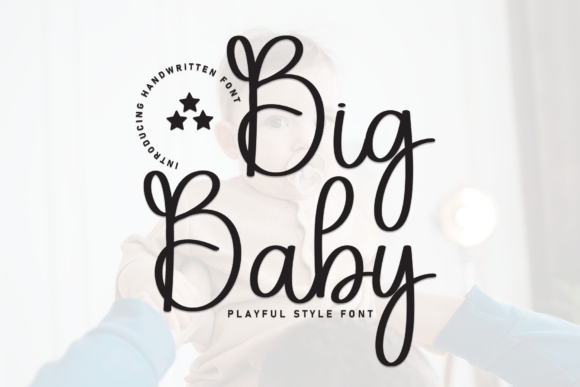
The Perfect Script for a Touch of Whimsy
Do you remember the moment when you stumbled upon the perfect font for a project? The one that made your design come alive and transported your audience to a world of wonder? For designers, this is the sweet spot where creativity meets magic. And for those seeking that special something, Big Baby Font is here to bring a fresh wave of whimsy and delight to your designs.
With its playful curves and graceful swashes, Big Baby Font is the ideal choice for enchanting wedding invitations, heartfelt greetings, and any project that calls for a touch of joyful elegance. Whether you’re a seasoned designer or a creative enthusiast, this font is a valuable addition to your toolkit, overflowing with personality and a hint of artistic refinement that effortlessly elevates your work with style and flair.
Big Baby Font Key Features
- Unique Characteristics: Big Baby Font features a bold, playful style with exaggerated letterforms and a mix of rounded and angular shapes.
Big Baby Font Review
Big Baby Font, designed by the talented Lucas Beaufort, is an energetic and playful script font that’s sure to catch your eye. Here are some of its strengths:
- ✨ Unique, bold and expressive characters that are perfect for adding a touch of personality to your designs.
- ✨ Highly customizable with a wide range of OpenType features, allowing you to fine-tune the font to suit your specific needs.
- ✨ Comes in a variety of weights and styles, making it a great choice for creating visually appealing typography.
- ⚠️ May not be suitable for formal or professional applications, as its playful nature may come across as unpolished.
- ⚠️ Some characters may be difficult to read in certain font sizes or when used in combination with other fonts.
- ⚠️ Limited language support, which may limit its use in multilingual projects.
Overall, I think Big Baby Font is a great choice for designers looking to add a touch of whimsy to their projects. While it may not be suitable for every application, its unique character and high level of customization make it a valuable addition to any designer’s toolkit.
Big Baby Font is ideal for creating bold and playful designs, such as:
1. Social media graphics.
2. Advertising and marketing materials.
3. Party invitations and decorations.
4. Personalized gifts and merchandise.
Remember to use Big Baby Font in moderation to avoid overwhelming your design.
Alternatives to Big Baby Font
Playfair Display is a luxurious and elegant script font. It’s perfect for creating a sophisticated and high-end look, making it ideal for use in invitations, luxury branding, and fine art projects. When compared to Big Baby Font, Playfair Display is more refined and has a more classic feel, while Big Baby Font is more playful and casual.
Great Vibes is a modern and stylish script font that’s perfect for creating a fun and energetic vibe. It’s great for use in headings, titles, and social media graphics. Compared to Big Baby Font, Great Vibes has a more contemporary feel and is more versatile, making it a great choice for a wide range of design projects.
Alex Brush is a beautiful and elegant script font that’s perfect for creating a romantic and whimsical feel. It’s great for use in headings, titles, and body text, and is ideal for design projects that require a touch of elegance and sophistication. Compared to Big Baby Font, Alex Brush has a more delicate and refined feel, while Big Baby Font is more playful and bold.
Carolyna Pro is a modern and stylish script font that’s perfect for creating a sophisticated and elegant look. It’s great for use in headings, titles, and body text, and is ideal for design projects that require a touch of luxury and refinement. Compared to Big Baby Font, Carolyna Pro has a more polished and refined feel, while Big Baby Font is more casual and playful.